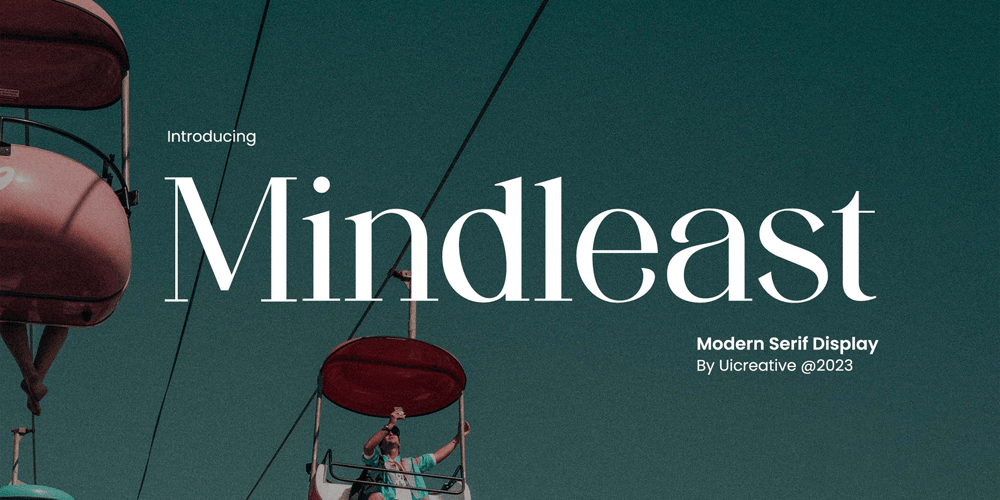
Mindleast Font Family was designed by Hero and published by UICreative. Mindleast contains 1 styles and family package options. Introducing our new product the name Mindleast Modern Serif Display Font. Modern Serif font that beautiful classy, elegant, and modern. This font is perfectly suited for a wide variety of projects, such as signature, stationery, logo, wedding, typography quotes, magazine or book covers, website headers, clothing, branding, packaging design, and more. Also for fashion-related branding or editorial design and displays both masculine and feminine qualities.